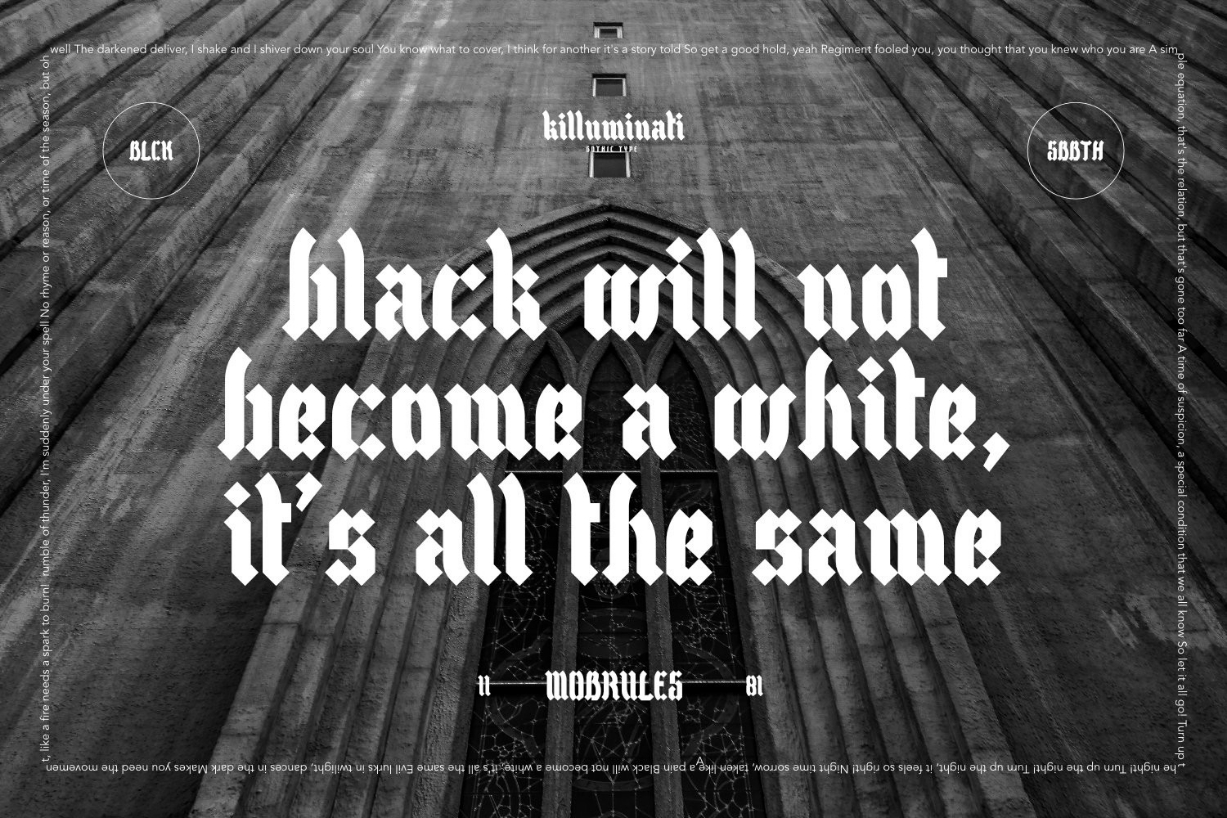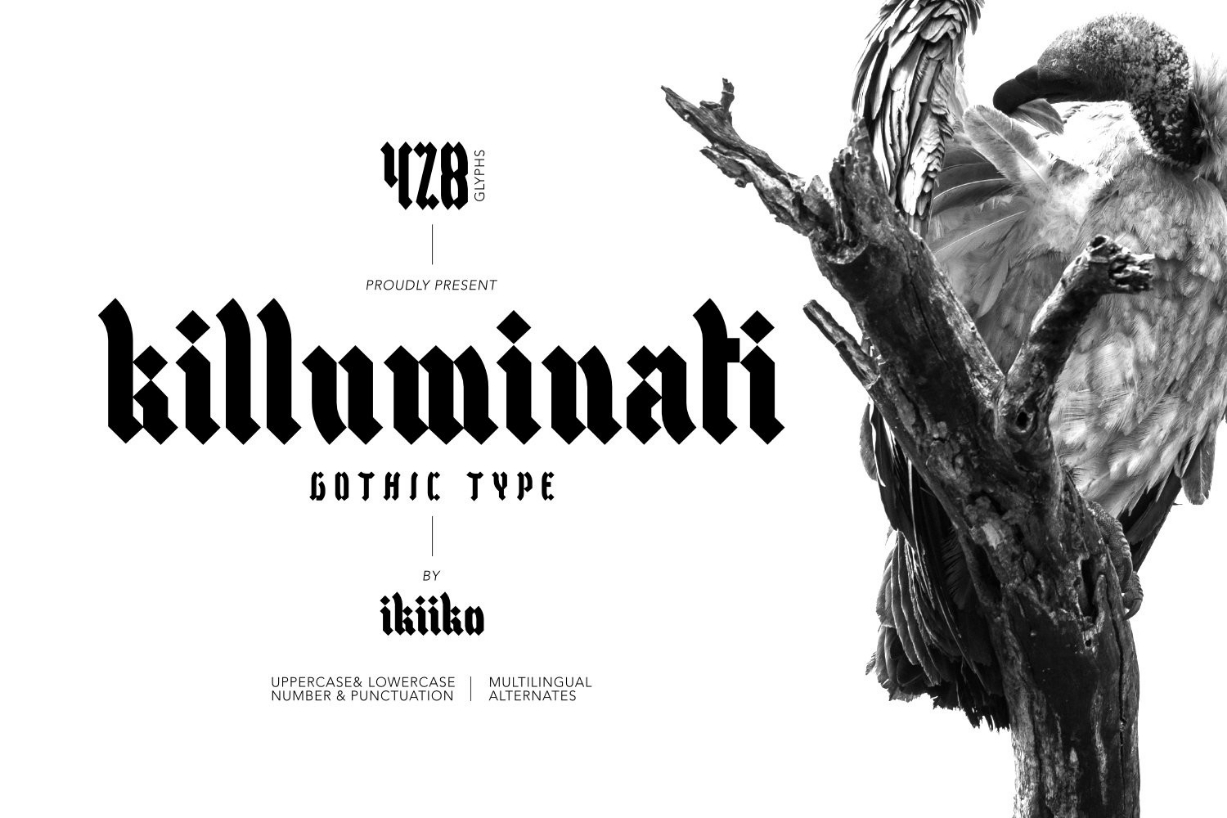
About Killuminati Font
Killuminati is a simple English old type with modern blackletter style. This typeface is inspired by the gothic & classic rock band logo. It has a bold font with a combination of sharp and curved corners. This font is perfect for a poster event, stencil, logotype, magazine layout, fashion stuff, quotes, and so much more.